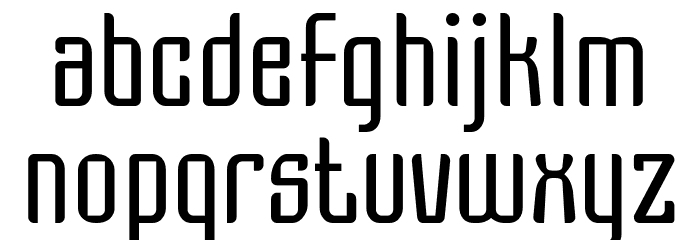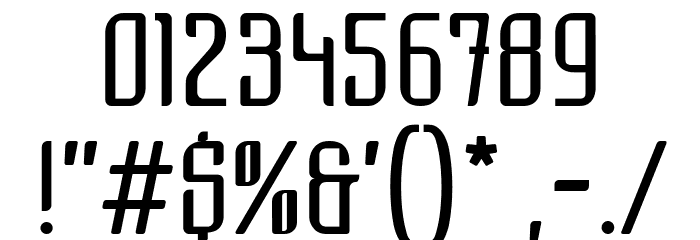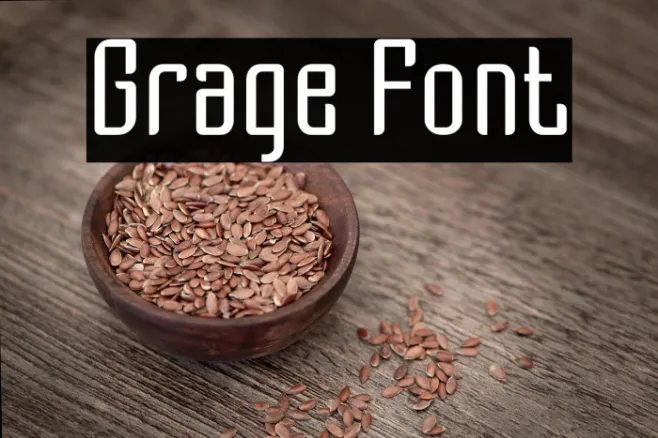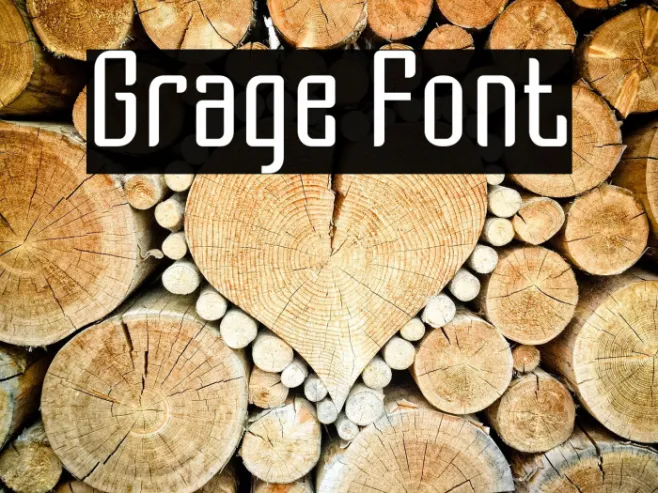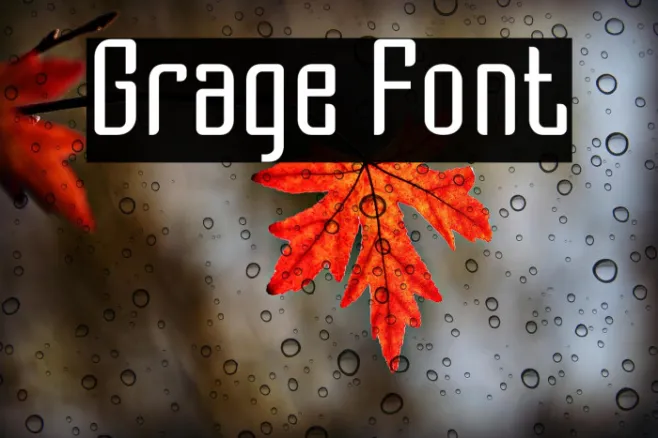
Grage Font
This font features a modern and sleek design with rounded edges and a geometric structure. The characters are tall and narrow, giving it a condensed appearance. The uppercase letters maintain a consistent height, while the lowercase letters are slightly shorter, providing a balanced look. The numerals and special characters follow the same design principles, ensuring uniformity across all glyphs. The overall style is clean and minimalistic, making it suitable for contemporary design projects.
A modern, geometric font with rounded edges and a condensed style.
- Proposed Projects: Ideal for branding, packaging, and digital interfaces where a modern and clean aesthetic is desired.
- Use Case: Headlines, Logos, Digital Interfaces